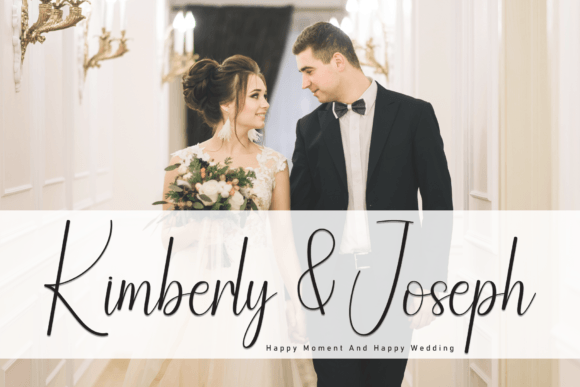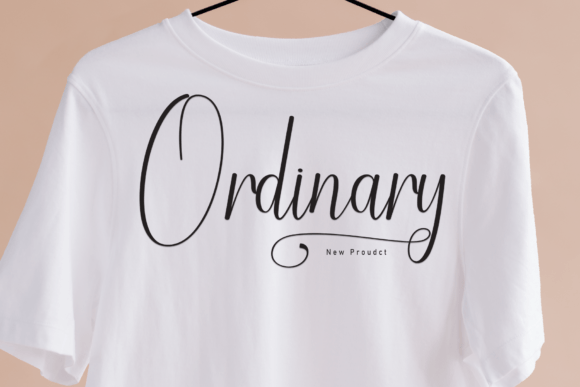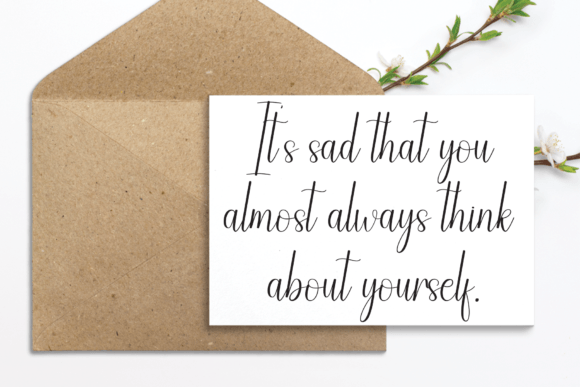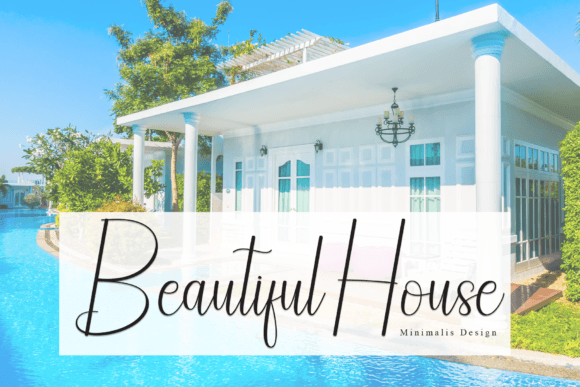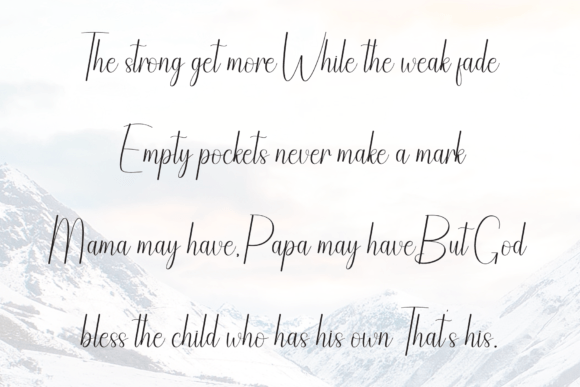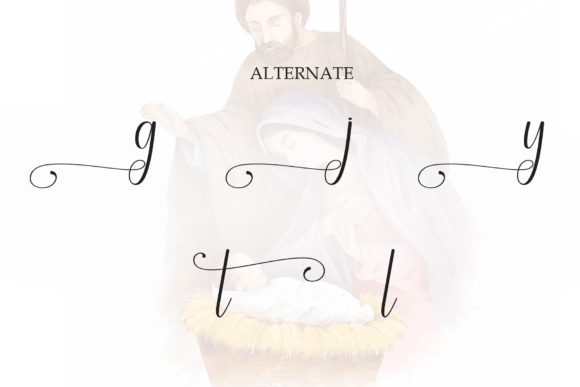
Introduction to Nativity Font
Have you ever stumbled upon a font that immediately sparks a creative idea for your next project? For many designers, this moment is a thrilling experience that sets the tone for a beautiful and imaginative design. It happened to me when I discovered the Nativity Font – a sweet and friendly handwritten display font that is sure to add a fun touch to any design.
With its unique charm and character, the Nativity Font is a valuable resource for designers looking to add a personal and playful element to their creative projects. Whether you’re working on a wedding invitation, a birthday card, or any other design that requires a touch of whimsy, this font is an excellent choice. And the best part? It’s available for free download, making it an accessible design resource for designers of all levels.
Nativity Font
- High-quality font designed for creative projects and holiday-themed designs
- Features a unique and elegant design, perfect for adding a touch of sophistication to your projects
Honest Review: Nativity Font
I recently came across the Nativity Font, a design resource that caught my attention due to its high quality and free download option. The font is perfect for any creative project that requires a touch of elegance and sophistication.
However, I did encounter a few limitations while using the Nativity Font. ⚠️ The font is not as extensive as some other options on the market, with a relatively small character set.
Despite this, I was impressed with the overall quality of the font. The designer has done an excellent job in crafting a beautiful, high-quality design resource that is perfect for any creative project.
Tips for Getting the Most Out of Nativity Font
Experiment with different font sizes and styles to achieve the desired effect.
Combine the Nativity Font with other design elements for a unique look.
Common Use Cases for Nativity Font
Use the Nativity Font for holiday-themed designs, such as Christmas cards and decorations.
Comparison to Nativity Font: While Nativity Font has a more rustic feel, Great Vibes Font is more refined and polished. Great Vibes Font is ideal for projects that require a touch of elegance, whereas Nativity Font is better suited for more rustic or vintage-inspired designs.